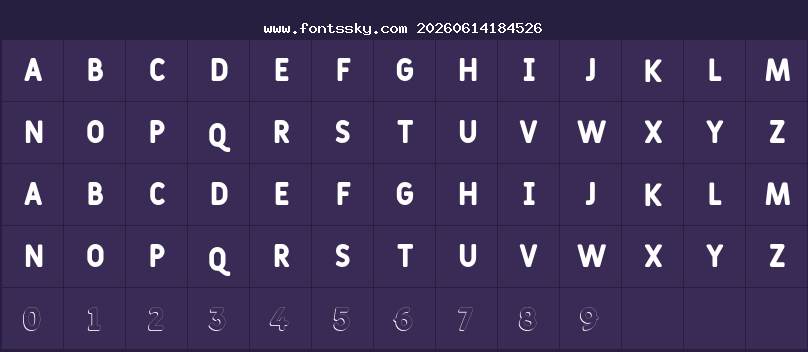
Fulbo Champagne Preview
• Font Name: Fulbo Champagne
• Font ID: Version 1.001; ;Fulbo-Champagne;2019;FLVI-600
• Full Font Name: Fulbo-Champagne
• Version: Version 1.001
• PostScript Name: Fulbo-Champagne
• Character Count: 446
• Designer: Alejo Bergmann
• Manufacturer: Hagilda
About Fulbo Champagne.otf
Fulbo Champagne.otf is a modern, elegant sans-serif font designed for ultimate readability and visual harmony. Perfect for branding, headlines, web design, and print materials.